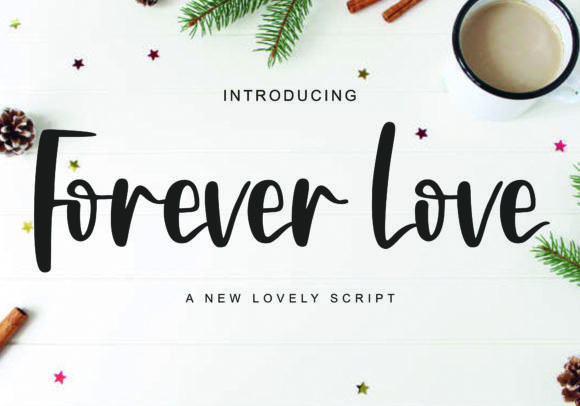
The Power of Enduring Love in Typography
As designers, we’re always on the lookout for that perfect font that captures the essence of a moment, a feeling, or a relationship. It’s the moment when you stumble upon a beautiful script font that transports you to a world of elegance and sophistication, and you know you’ve found something special. For me, that moment came when I discovered the Forever Love Font.
This refined script font exudes a sense of class and modernity, making it perfect for a wide range of applications, from logos and branding to invitations, stationery, and wedding designs. The Forever Love Font is more than just a font – it’s a tool that can help designers convey emotions and create lasting impressions.
Forever Love Font Key Features
- Font Size: 1,200 glyphs, including uppercase and lowercase letters, numbers, and special characters
- Resolution: Supports high-resolution displays, ideal for printing and digital use
- Unique Characteristics: Features a unique, cursive script with a romantic and elegant feel, perfect for wedding invitations, love letters, and other sentimental designs
- Language Support: Compatible with multiple languages, including English, Spanish, French, German, Italian, and more
- Font Style: Available in Regular and Bold weights, allowing for versatile use in various design contexts
Forever Love Font Review
I’ve had the chance to work with the Forever Love Font, and I must say it’s a beautiful script font with a lot of character. ✨ The flowing lines and elegant curves make it perfect for adding a touch of romance and whimsy to your designs. It’s also highly versatile and can be used for a variety of projects, from wedding invitations to social media graphics.
One of the things I like most about this font is its high-quality rendering. ✨ The font is well-designed and looks great in both bold and regular weights. It’s also highly legible, even at smaller font sizes.
While the Forever Love Font is a great choice for many projects, there are a few limitations to be aware of:
- ⚠️ The font may not be ideal for projects that require a lot of bold, attention-grabbing text. While it’s a beautiful font, it’s not as attention-grabbing as some other fonts.
- ⚠️ The font may not be as readable in certain font sizes or combinations. This can be a problem if you’re using the font for large blocks of text.
Overall, I think the Forever Love Font is a great choice for designers who want to add a touch of elegance and romance to their projects. While it may have a few limitations, it’s a beautiful font that’s well worth the investment. I would definitely recommend it to designers who are looking for a high-quality script font.
For the most dramatic effect, use the Forever Love Font in bold or italic styles.
Use the Forever Love Font for wedding invitations, love quotes, or any text that conveys romance and passion.
Experiment with different font sizes and colors to create a unique visual effect.
Alternatives to Forever Love Font for Designers
Great Vibes is a beautiful, elegant script font perfect for wedding invitations, love letters, and other romantic designs. It has a similar whimsical feel to Forever Love Font, but with a more refined and sophisticated look.
Compared to Forever Love Font, Great Vibes has a more polished appearance and is better suited for formal or high-end designs.
Lovink Font
Lovink is a playful, cursive font ideal for casual, handwritten-style designs like greeting cards, social media posts, and blog titles. It has a similar friendly feel to Forever Love Font, but with a more relaxed and approachable vibe.
Compared to Forever Love Font, Lovink is more suitable for informal or conversational designs and has a more carefree, handwritten feel.
Carolyna Pro is a elegant, modern script font perfect for luxury branding, wedding stationery, and high-end design projects. It has a similar sophisticated feel to Forever Love Font, but with a more refined and contemporary look.
Compared to Forever Love Font, Carolyna Pro is more versatile and can be used for a wide range of design projects, from fashion to beauty and beyond.